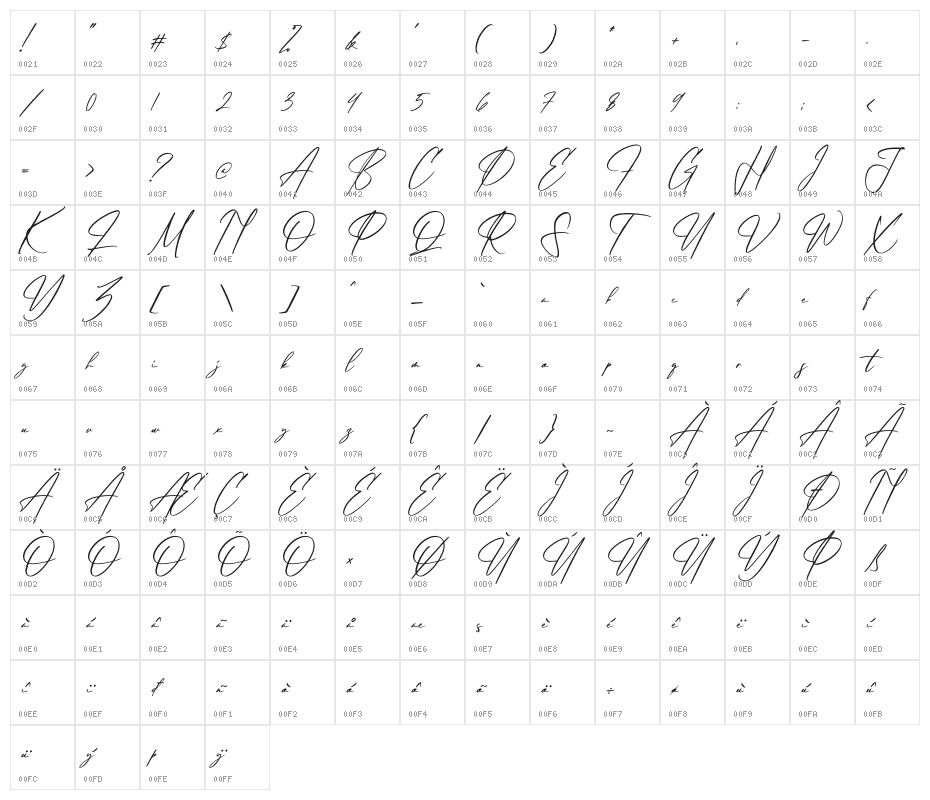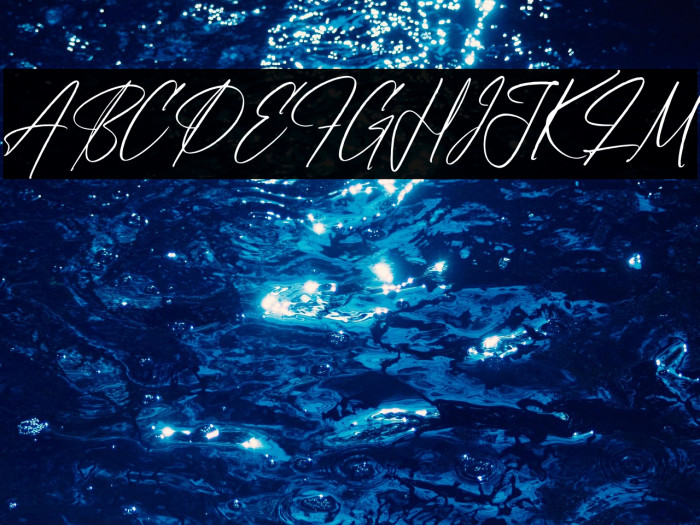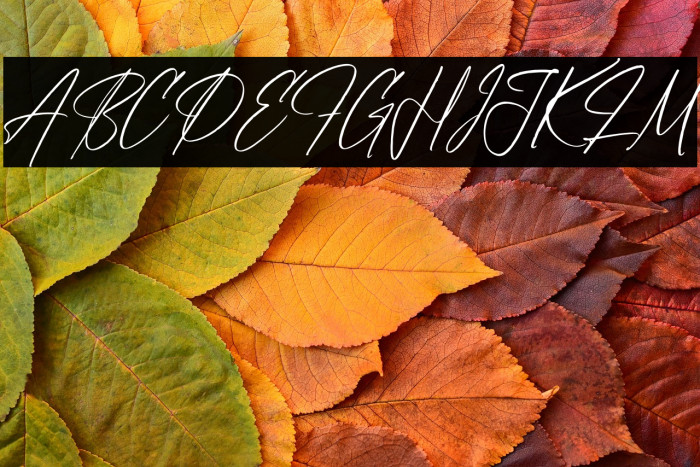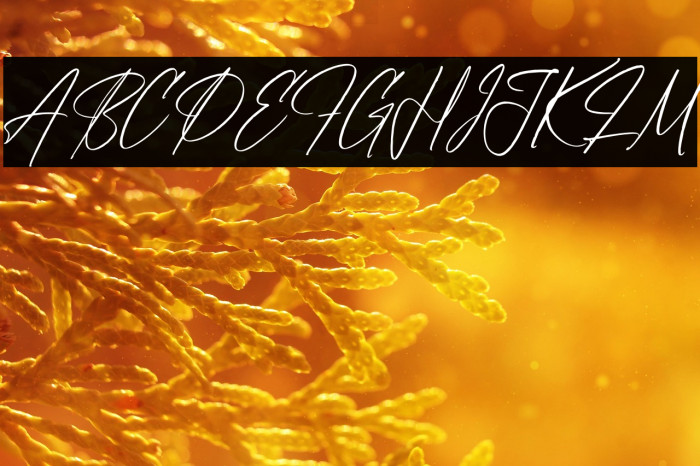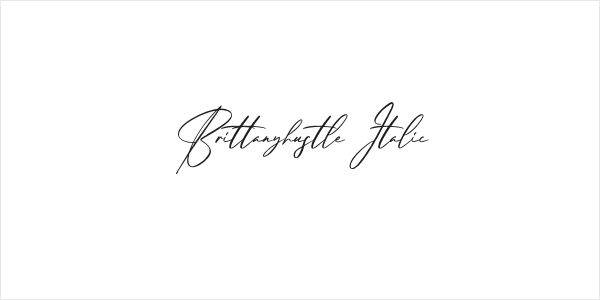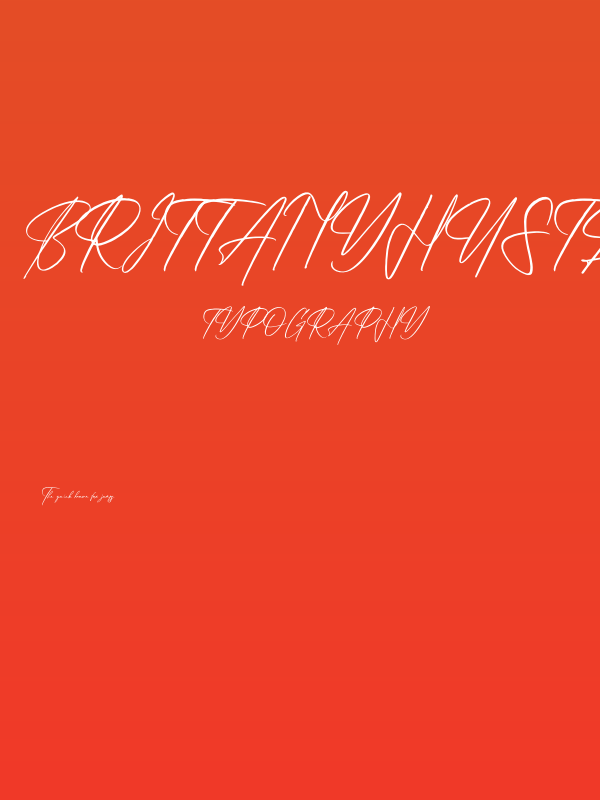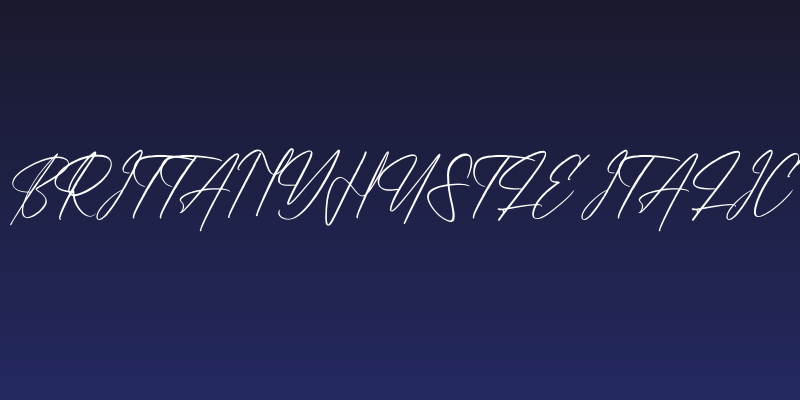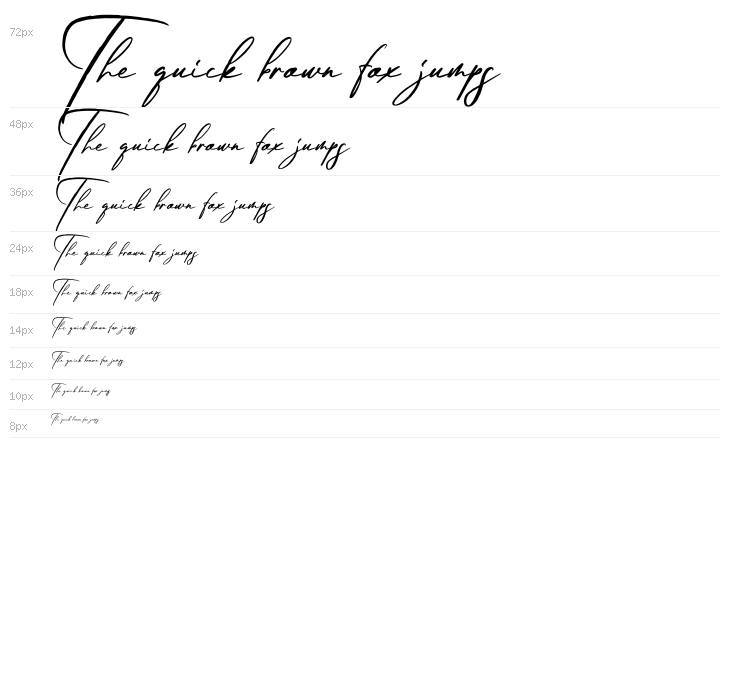
Brittanyhustle Italic Font
Brittanyhustle Italic Description
This font exudes a dynamic and expressive style, characterized by its flowing, cursive script. The letters are elegantly slanted, giving it a sense of motion and fluidity. The strokes are smooth and connected, with a natural handwritten feel that adds a personal touch. The uppercase letters are bold and prominent, while the lowercase letters maintain a consistent flow. The numbers and special characters are crafted with the same attention to detail, ensuring a cohesive look across all elements. This font is perfect for projects that require a touch of elegance and personality.
| Overall Style | Elegant, Handwritten |
| Proposed Projects | Ideal for wedding invitations, personal branding, greeting cards, and elegant logos. |